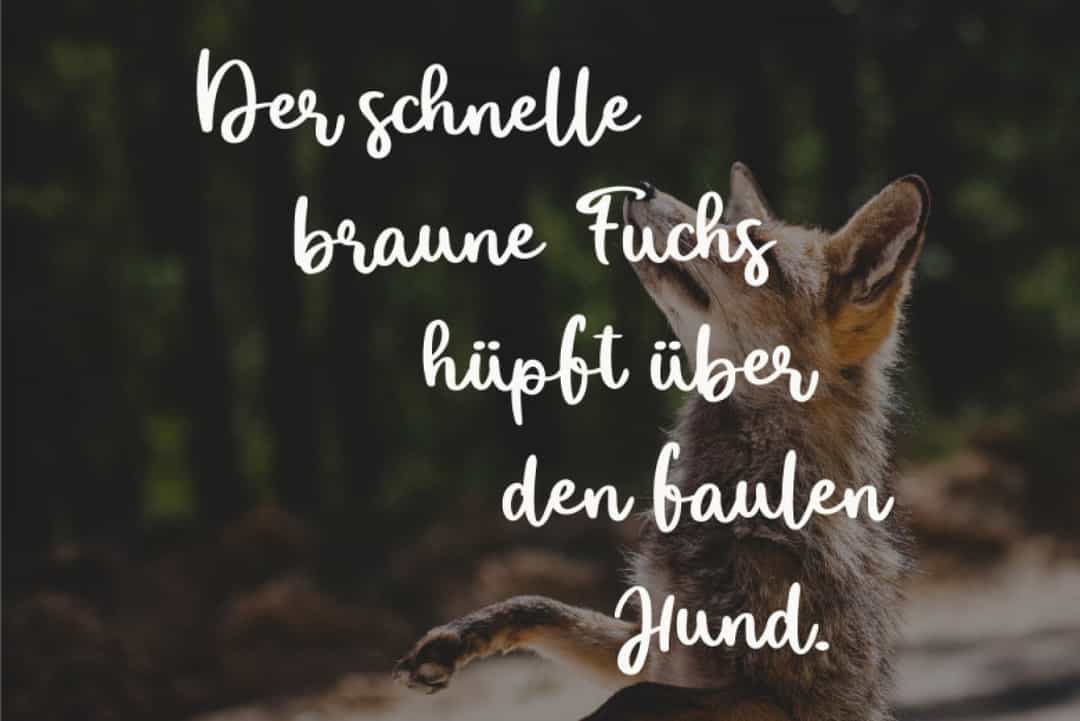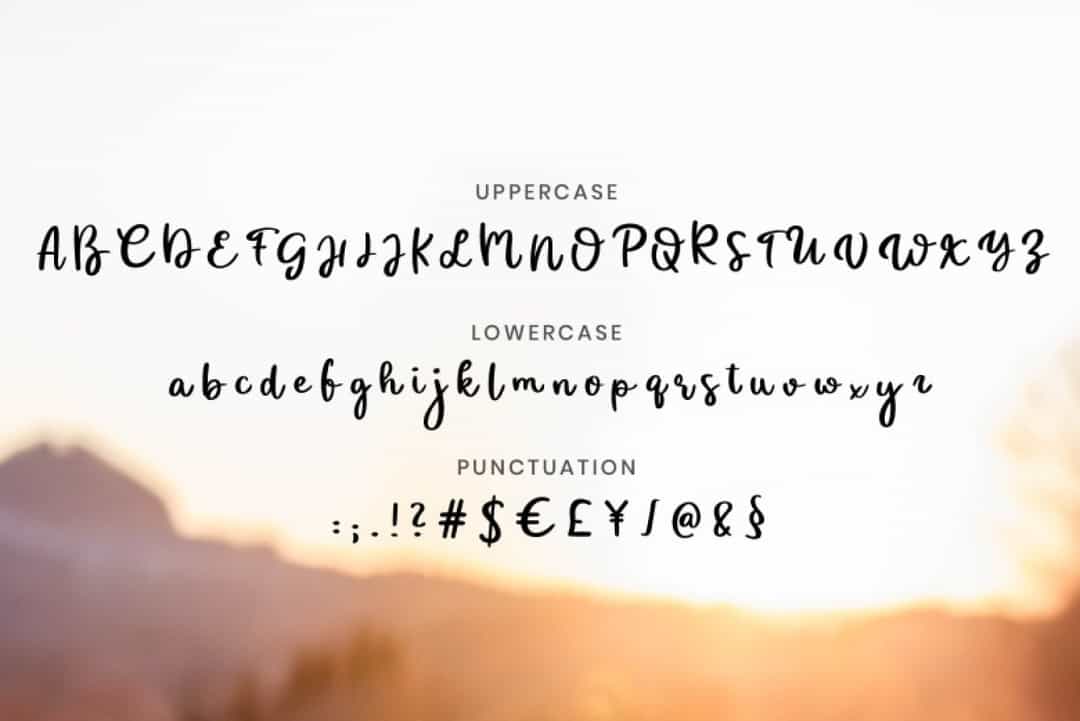
Sunshine is a beautiful handwritten font created to become a stylish and contemporary font for various purposes. This is a calligraphic font that has that timeless beauty to it while still being able to have that modern edge – use this font and elevate your projects!